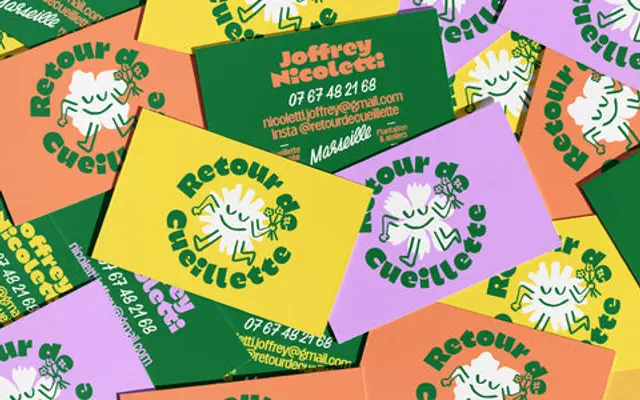
Kaio
Lift Type · Romain Oudin · 2023
A humanist sans in six weights with a separate display cut called Krilin, drawing on Gill Sans and Antique Olive with a Japanese cultural flavour.
Designed by Romain Oudin at Lift Type and released in 2023, the family runs from Light through Super across six weights, with a variable font included. The Krilin variant amplifies the character with rounder counter-forms and more extreme proportions suited to large-scale display use. OpenType features include stylistic sets, circled numerals, arrows and full fraction support, covering a broad range of Latin-extended languages.
Self-described as humanist-inspired, citing Gill Sans and Antique Olive as references. The Krilin display variant introduces rounder, more exaggerated counter-forms, pushing it toward display territory, but the primary family sits firmly in humanist sans.